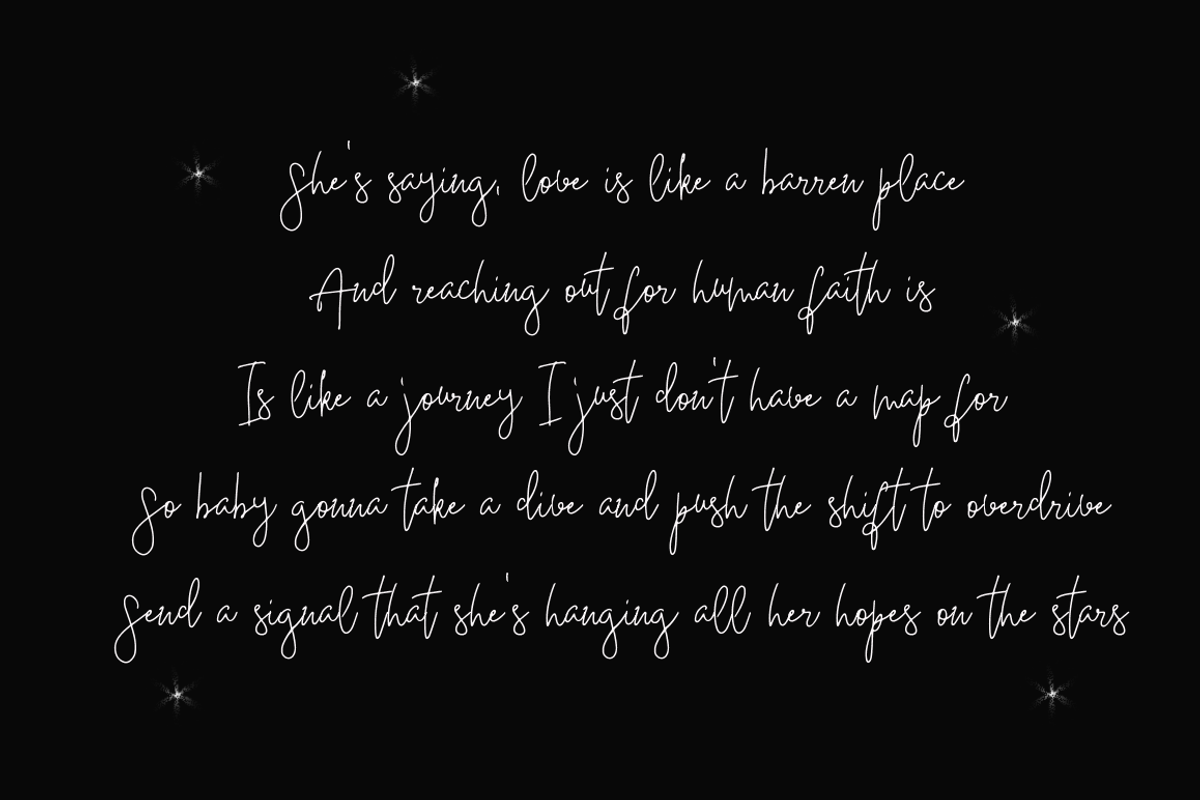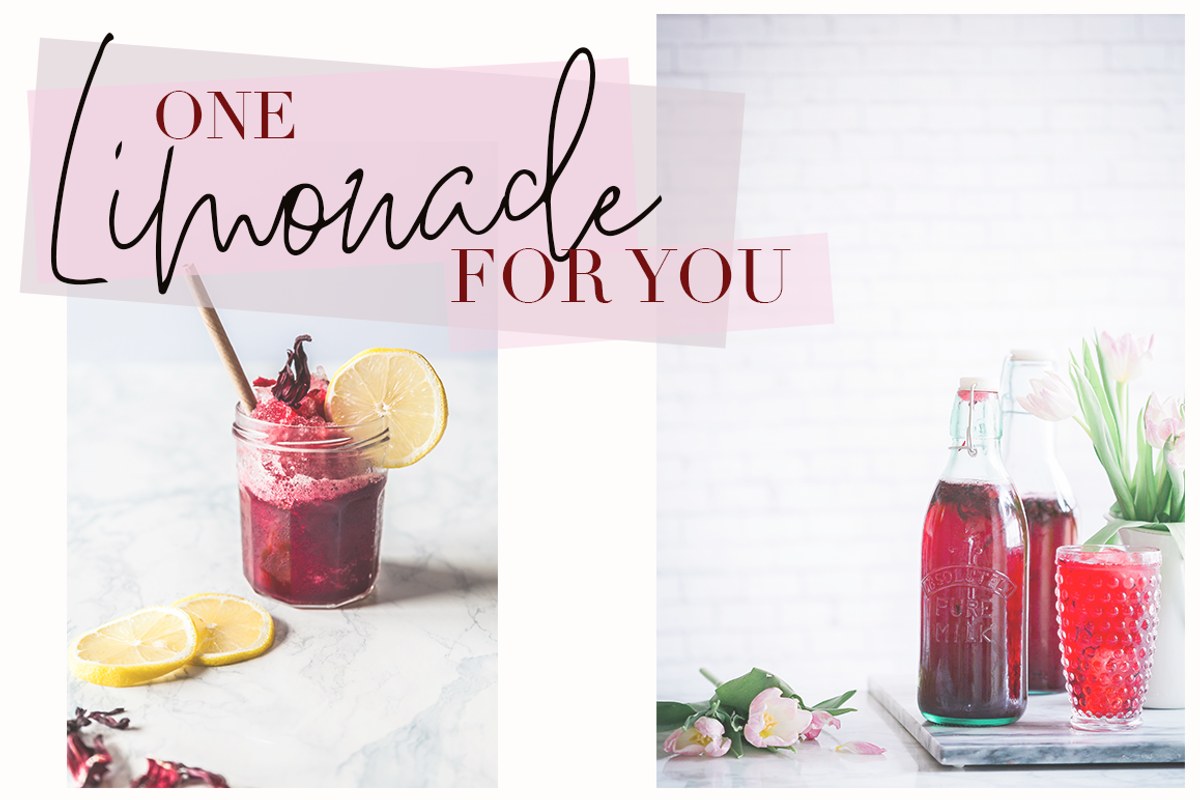
Deelishes
*A fresh handmade summer loving calligraphy font DEELISHES
Perfect for adding a elegant and unique touch to your lettering projects and branding. Every single letters have been carefully crafted to make your text looks beautiful. With lettering script style this font will perfect for many different project ex: quotes, blog header, poster, wedding, branding, logo, fashion, apparel, letter, invitation, stationery, etc.